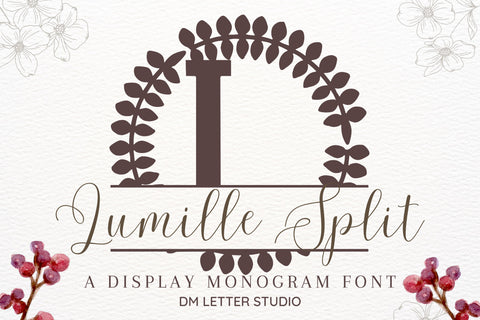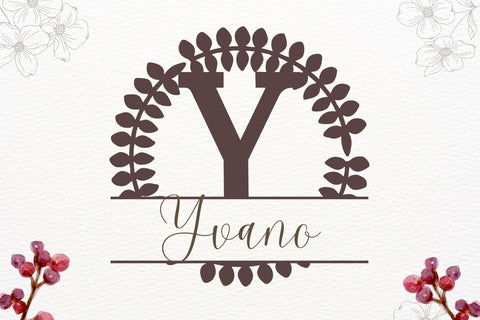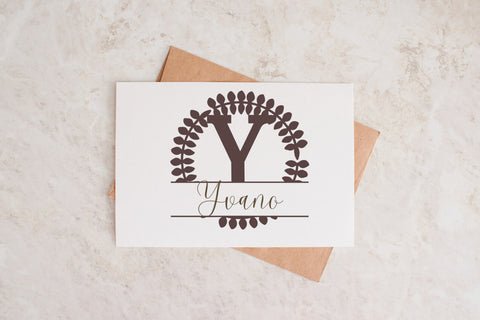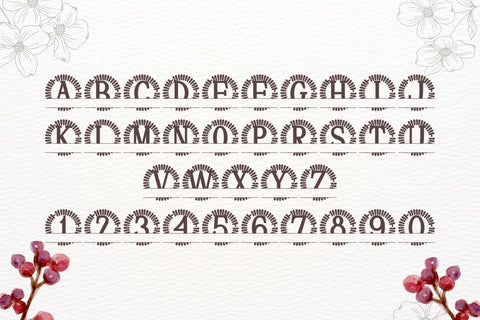
Lumille Split Monogram Font
Meet Lumille Split Monogram Font
Lumille Split Monogram Font turns any initial into a radiant, name-ready emblem in seconds. Calm, balanced letterforms carry quiet elegance, while a precise horizontal split creates natural space for names, dates, or short words. Because spacing stays even and counters remain open, designs look polished on tiny tags, door hangers, tumblers, ornaments, menus, and wall art. Pair it with a clean sans or a light script and every layout stays readable and premium.
Where this split monogram font shines
Set one hero initial and place the family name inside the split for instant personalization. Try couple names for engagement gifts, venue names for signage, or short words like Home, Welcome, and Love for seasonal décor. Since the proportions favor clarity, files scale smoothly for Cricut, Silhouette, Glowforge, and laser projects. As a result, you can batch customization for markets and storefronts with consistent quality.
Design tips for Lumille Split Monogram
Keep the hero initial large and let white space breathe. Place the split at center or slightly low for a steady baseline. Choose a simple secondary font inside the split to protect legibility on small items. Because the style is poised and airy, metallic foils, linen textures, and natural woods add instant value. Keep names concise so the composition stays balanced and clear at thumbnail size.
Uppercase alphabet optimized for split monograms
Why makers choose this split monogram font
You want fast personalization that still feels bespoke. Lumille Split Monogram Font delivers consistent, high-end name designs in minutes while keeping your shop’s visual language cohesive across many product types.